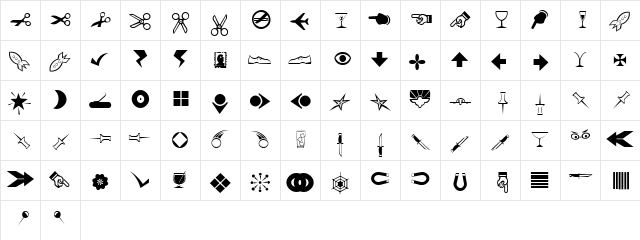
A&L Dingbats 1 Normal
Design Context for A&L Dingbats 1
A&L Dingbats 1 is a composed and adaptable typeface that performs quietly and consistently across a wide range of design contexts.